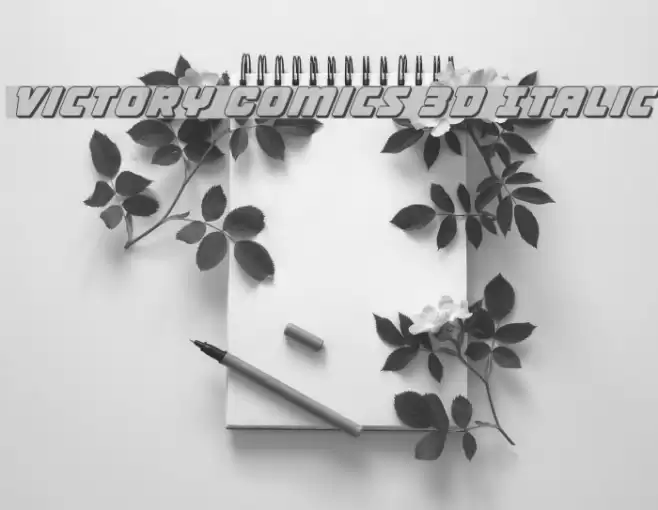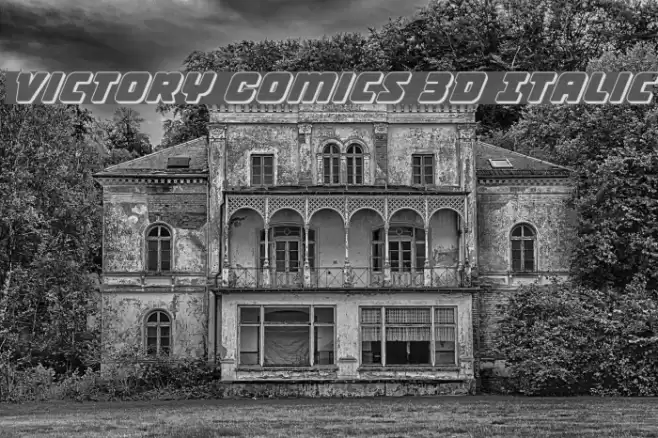
Victory Comics 3D Italic Font
Victory Comics 3D Italic Description
This font features a bold, three-dimensional style with a strong italic slant, giving it a dynamic and energetic appearance. The characters are outlined, adding depth and a comic book feel. The font's design is playful and eye-catching, making it ideal for projects that require a fun and engaging look. The uppercase and lowercase letters maintain a consistent style, with rounded edges and a slight blocky form. Numbers and special characters are included, matching the overall aesthetic. The font's unique style makes it stand out, perfect for creative and informal applications.
A bold, 3D italic font with a comic book style and outlined characters from Uncategorized fonts.
- Proposed Projects: Ideal for comic book titles, playful posters, children's book covers, and video game graphics.